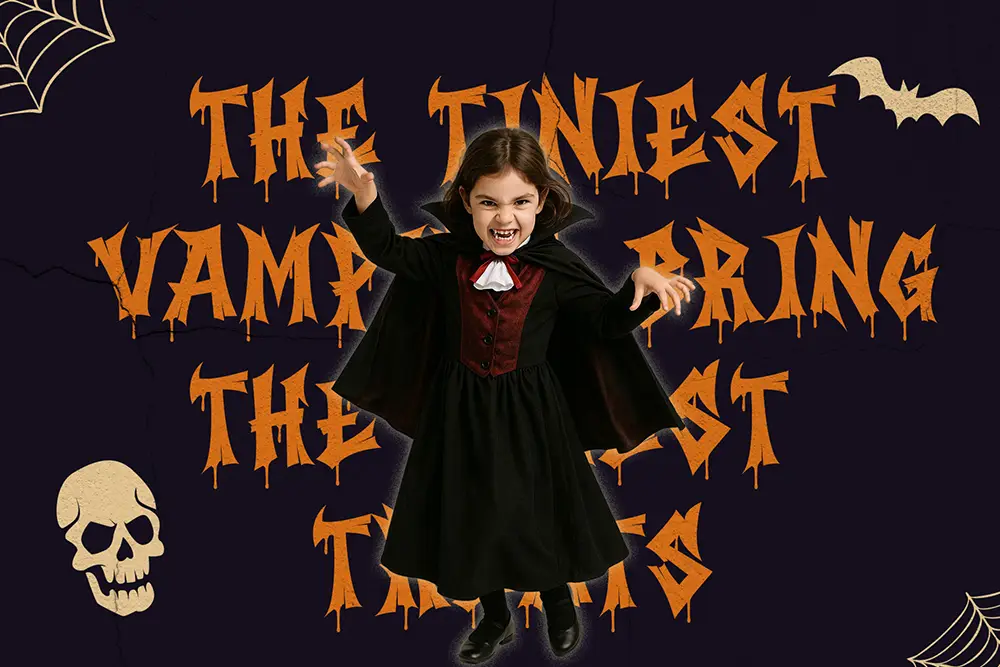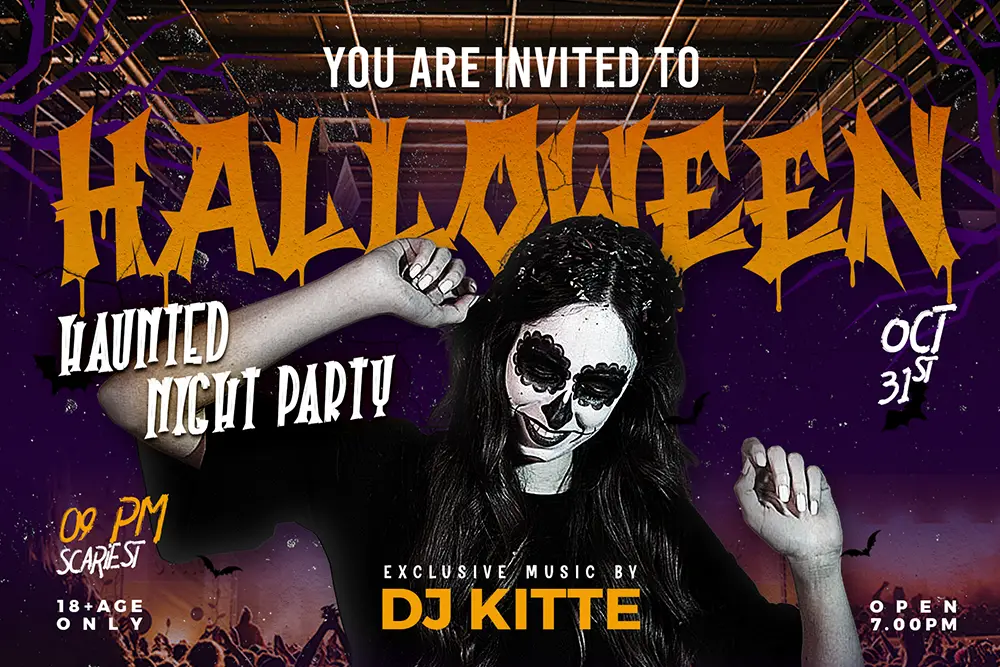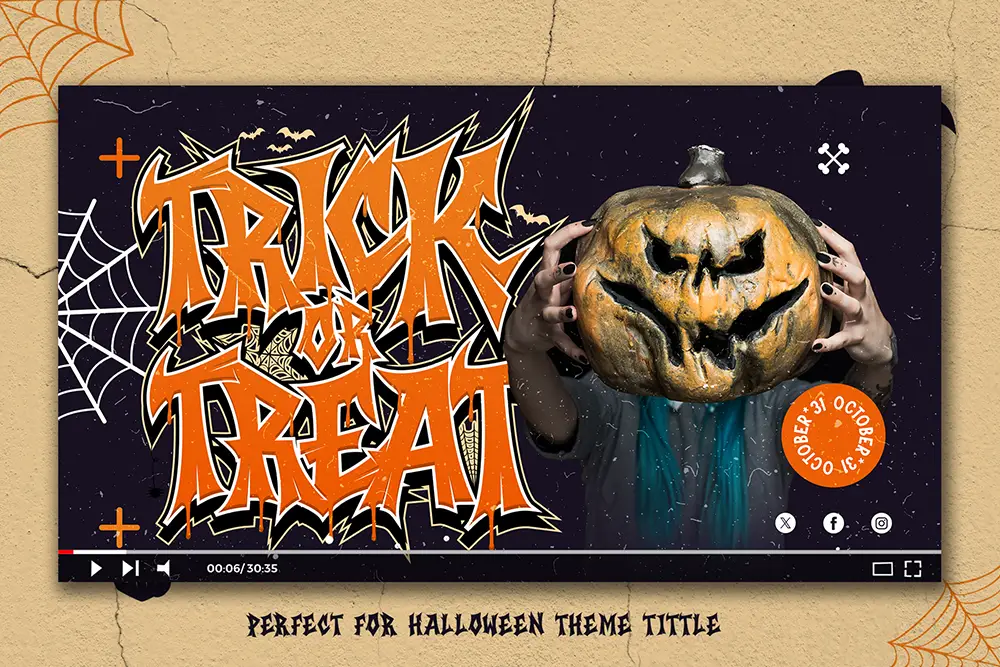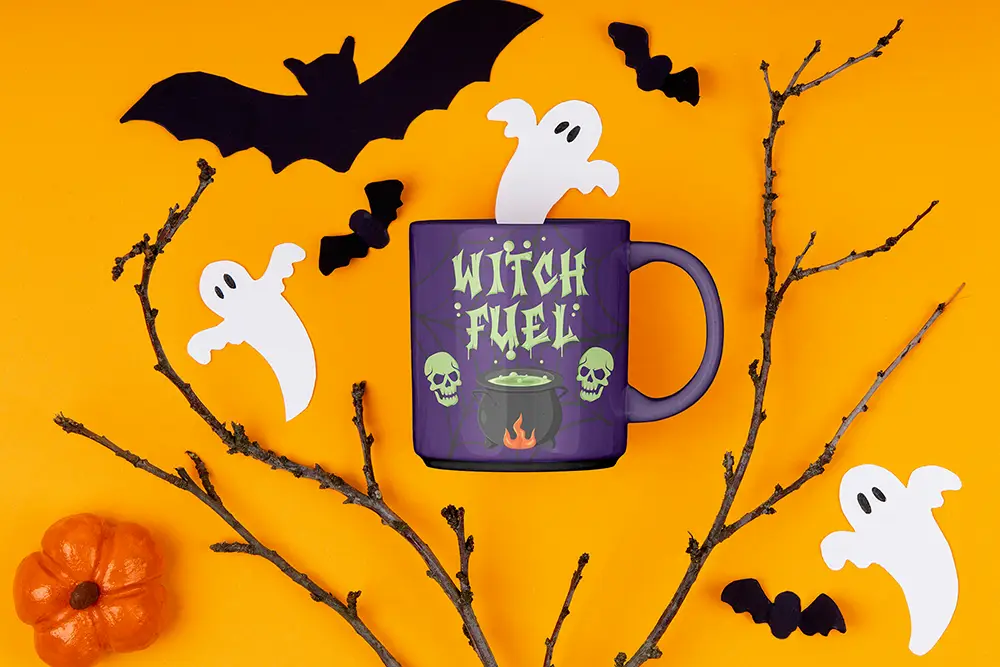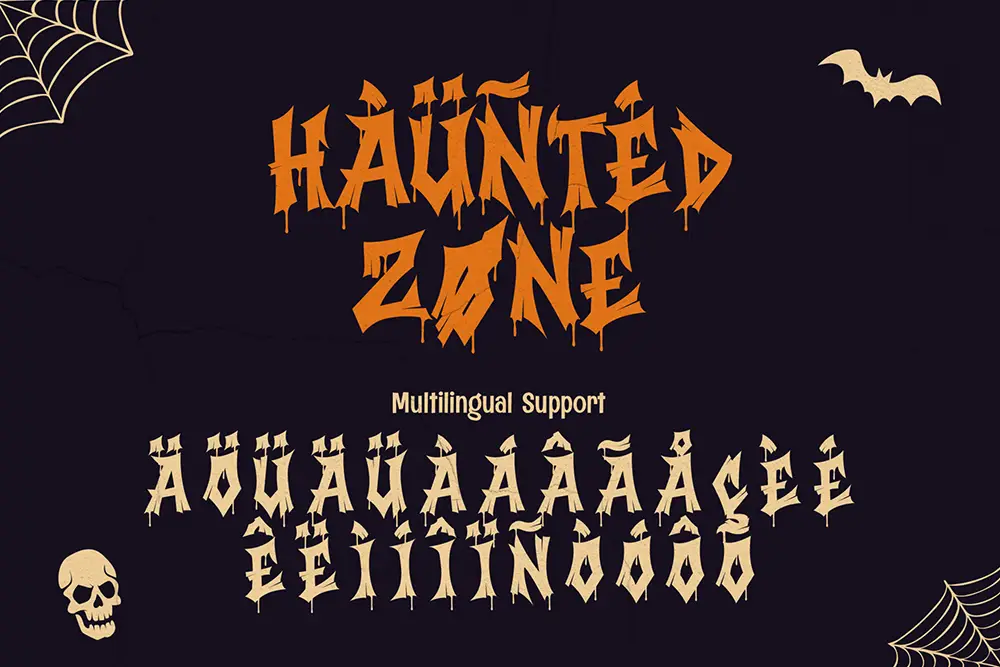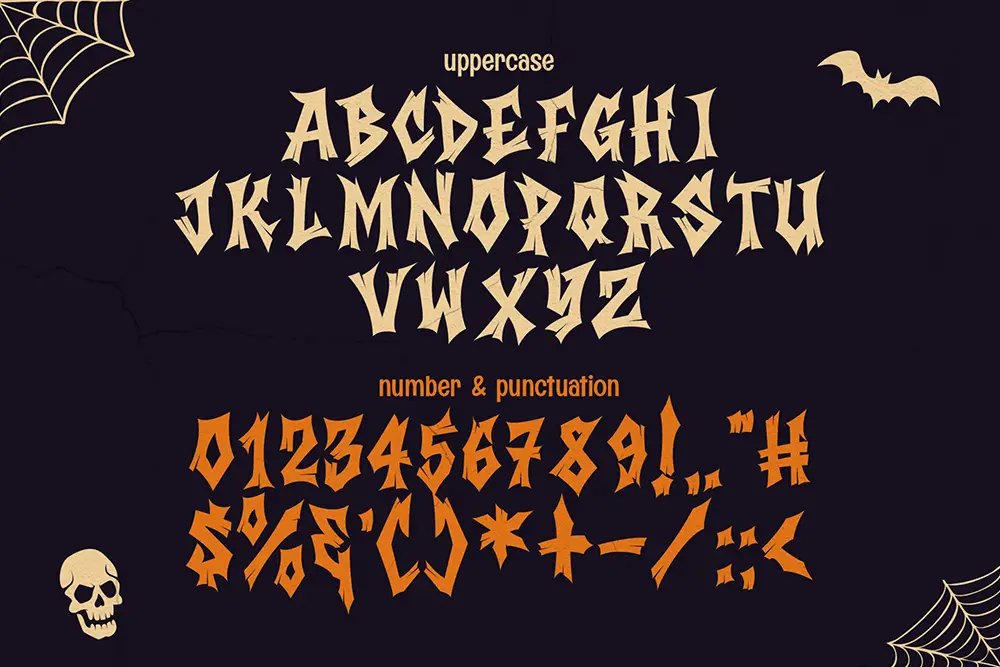
Vuldra – Graffiti Halloween Font for Spooky Bold Designs
Typography can set the entire mood of a design, and nothing captures eerie creativity like a graffiti Halloween font. Vuldra – Graffiti Halloween Font is built to bring dripping effects, spooky energy, and bold street-style vibes into your work. With both the regular and drip versions included, Vuldra is a must-have for designers creating seasonal graphics, horror-themed posters, edgy branding, or party invitations.
As a graffiti Halloween font, Vuldra combines raw street art energy with spooky lettering, making it one of the most versatile typefaces for October events and bold design concepts.
Graffiti Halloween Font with Dripping Style
Vuldra is crafted with sharp graffiti strokes and a haunting drip effect. This graffiti Halloween font instantly creates a spooky vibe while remaining modern and bold. Whether you want a clean graffiti look or an extreme dripping style, Vuldra gives you both with its two versions:
With uppercase, lowercase, multilingual support, and two stylistic options, this font is ready to make any design scream with personality.
Key Features of Vuldra – Graffiti Halloween Font
Here’s what makes this typeface essential for your font library:
• Uppercase & Lowercase: Complete character set for flexibility.
• Multilingual Support: Extended Latin characters included.
• Graffiti Style: Sharp urban lettering for bold and edgy designs.
• Drip Effect Version: Adds an authentic spooky Halloween touch.
• Perfect for Display Use: Best in large sizes like posters, logos, and headers.
Why Designers Love Vuldra
Designers love Vuldra because it brings two powerful worlds together: urban graffiti and Halloween horror. This graffiti Halloween font is ideal for projects that need to feel bold, edgy, and seasonal at the same time.
• Double Options: Choose between graffiti clean or dripping horror style.
• Seasonal Appeal: Perfect for Halloween campaigns and spooky merchandise.
• High Impact: Bold strokes ensure readability in posters and banners.
• Creative Pairings: Works great with other horror or layered fonts like Melted Brain Dripping Layered Halloween Font.
Vuldra for Posters and Halloween Events
If you’re promoting a haunted house, Halloween party, or horror movie screening, Vuldra is the graffiti Halloween font that sets the perfect tone. The dripping effect creates instant spookiness, while the graffiti style keeps it modern and exciting.
Event posters and seasonal flyers designed with Vuldra immediately grab attention, making sure your audience feels the Halloween energy.
Vuldra for Logos and Branding
Brands that want to look bold, edgy, and spooky can rely on Vuldra. This graffiti Halloween font is ideal for horror-themed product packaging, seasonal branding campaigns, and merchandise. The dripping version adds an extra layer of uniqueness, making logos instantly memorable.
Vuldra in Digital Media
Social media thrives on eye-catching visuals, and Vuldra delivers just that. As a graffiti Halloween font, it’s perfect for Instagram promos, YouTube thumbnails, and TikTok graphics. The drip version works especially well for seasonal posts during October, while the standard graffiti style fits urban and edgy year-round content.
Font Pairing Suggestions
Pairing fonts enhances creativity. Here’s how you can use Vuldra with other fonts:
Why Vuldra is the Graffiti Halloween Font You Need
In the world of seasonal and edgy design, you need a font that delivers strength, spookiness, and versatility. Vuldra does exactly that. With its two versions—clean graffiti and dripping horror—it gives designers creative freedom to adapt to any project.
Whether for posters, branding, or digital content, this graffiti Halloween font ensures your work will always stand out.
Vuldra – Graffiti Halloween Font is more than just typography—it’s an entire spooky vibe. With uppercase, lowercase, multilingual support, and two styles included, it’s perfect for bold seasonal projects and urban creative branding.